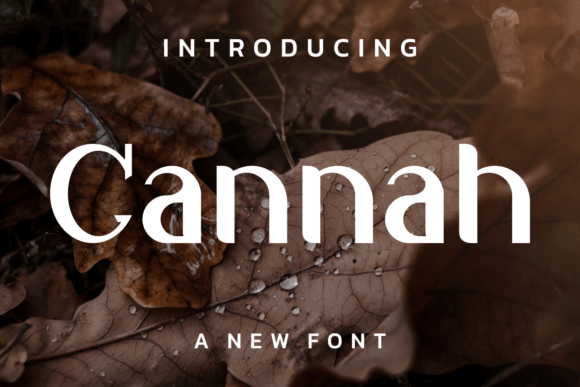
The Designer’s Delight: A Deep Dive into Cannah Font
I’ll never forget the time I was working on a branding project for a trendy new coffee shop. I had the logo design nailed, but I was struggling to find the perfect font to complement it. That’s when I stumbled upon Cannah Font. It was love at first sight! 💕 This modern and natural display font instantly elevated my design, and I knew I had to share it with fellow creatives.
An Honest Review of Cannah Font
So, what makes Cannah Font so special? Let’s dive into the good stuff and a few quirks I’ve discovered.
- ✨ Modern and fresh feel: Cannah Font has a trendy vibe that’s perfect for designs that need a bit of sophistication.
- ✅ Elegant lines and curves: The font’s natural flow makes it easy to read and visually appealing.
- 💬 Versatile: Whether you’re designing a logo, a poster, or a social media graphic, Cannah Font adapts seamlessly.
- 🤔 Limited use for body text: While Cannah Font is stunning as a display font, it might not be the best choice for longer blocks of text.
- ⚠️ Some characters may require manual kerning: As with any font, you might need to adjust the spacing between certain letters for optimal results.
Cannah Font was crafted with the modern designer in mind. Its creator aimed to produce a font that was both trendy and timeless, with clean lines and a natural flow. The result is a versatile font that suits a wide range of design projects.
| Author | Marvadesign |
| What makes Cannah Font unique? | Cannah Font stands out with its modern yet natural feel, making it perfect for designers looking for a trendy touch. |
| Is Cannah Font suitable for body text? | While it’s primarily designed as a display font, it can be used for short paragraphs but might not be ideal for longer texts. |
Cannah Font is more than just a typeface; it’s a design statement. Its modern elegance and versatility make it an excellent choice for a wide range of projects. By understanding its strengths and how to use it effectively, you can elevate your designs and make them truly unforgettable.